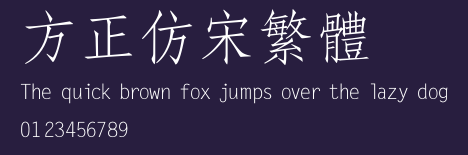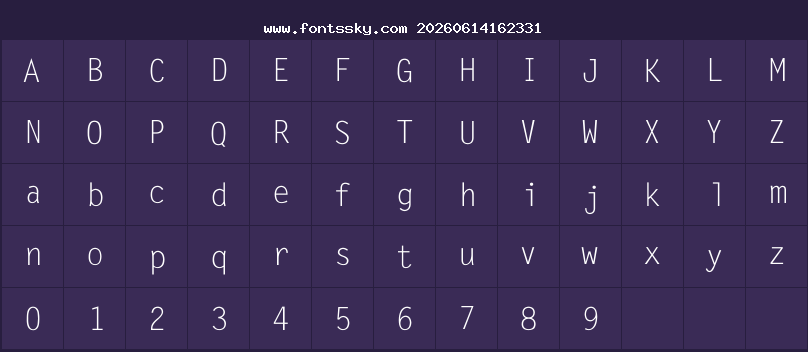
方正仿宋繁体 Preview
• Font Name: 方正仿宋繁体
• Font ID: Founder:方正仿宋繁体 Regular
• Full Font Name: 方正仿宋繁体
About 方正仿宋繁体.ttf
方正仿宋繁体.ttf is a modern, elegant sans-serif font designed for ultimate readability and visual harmony. Perfect for branding, headlines, web design, and print materials.